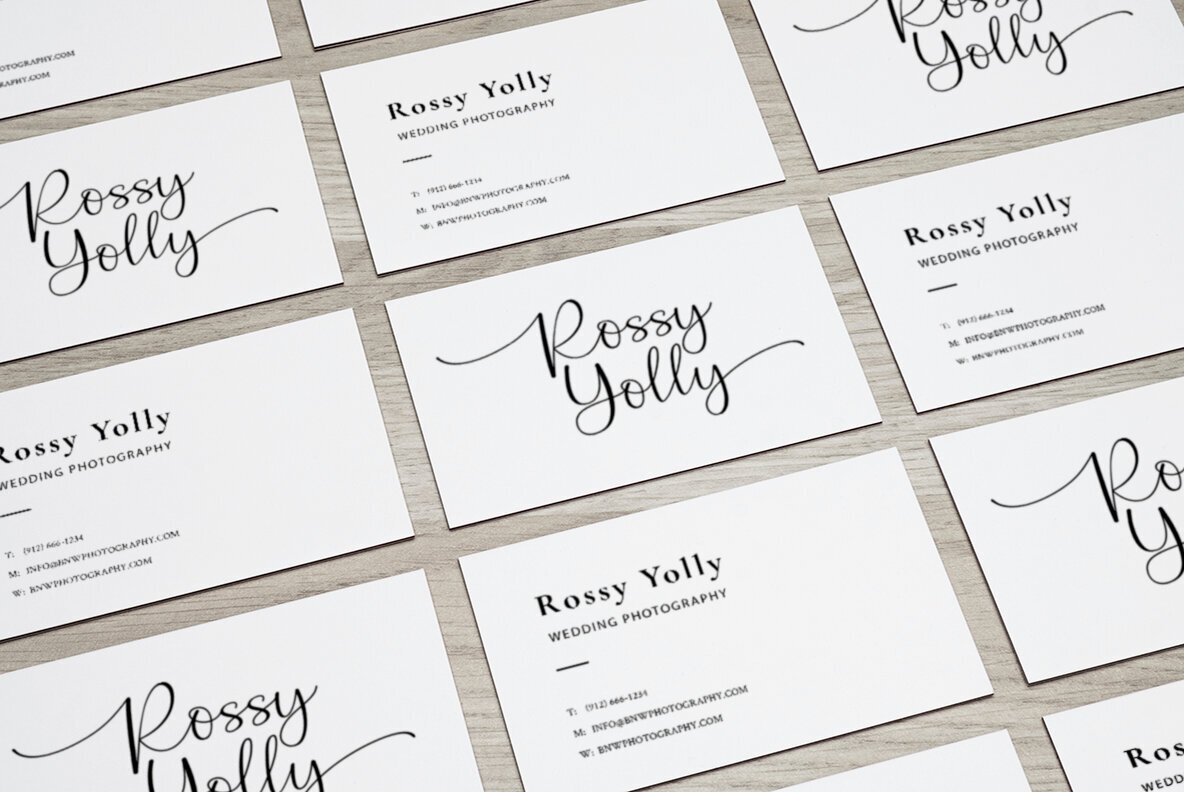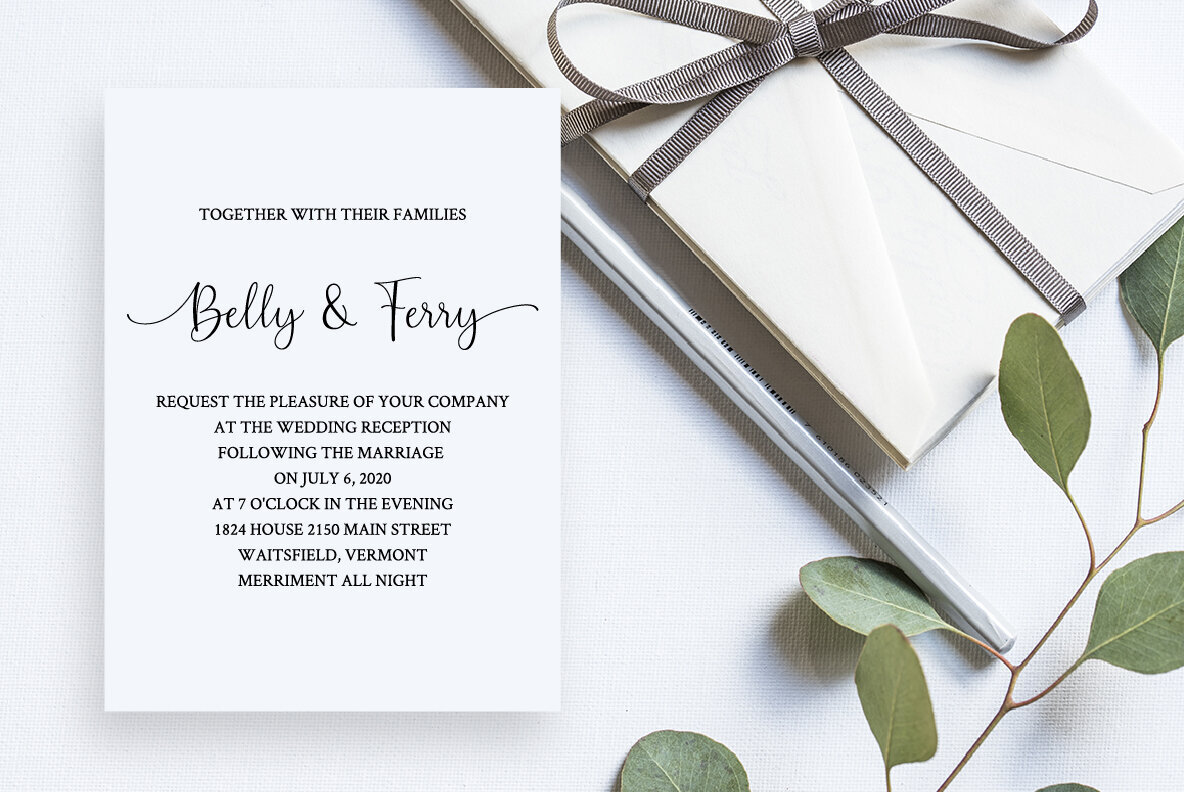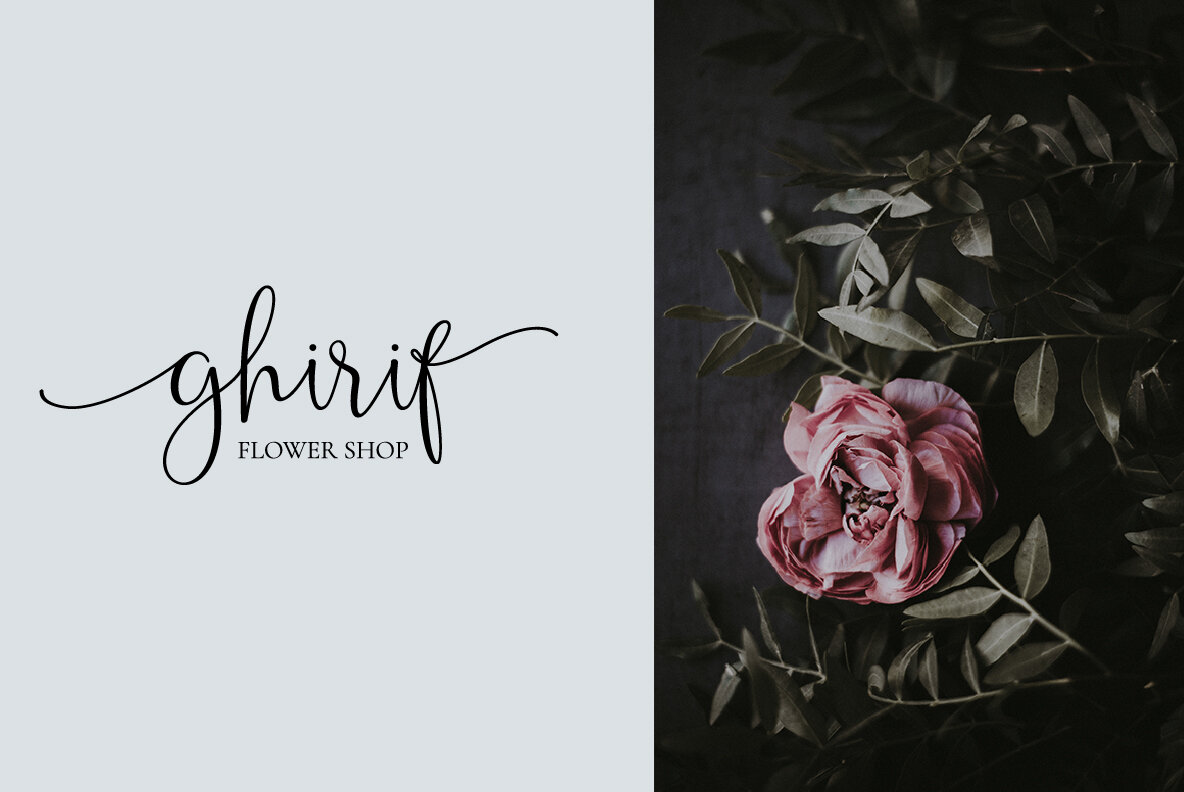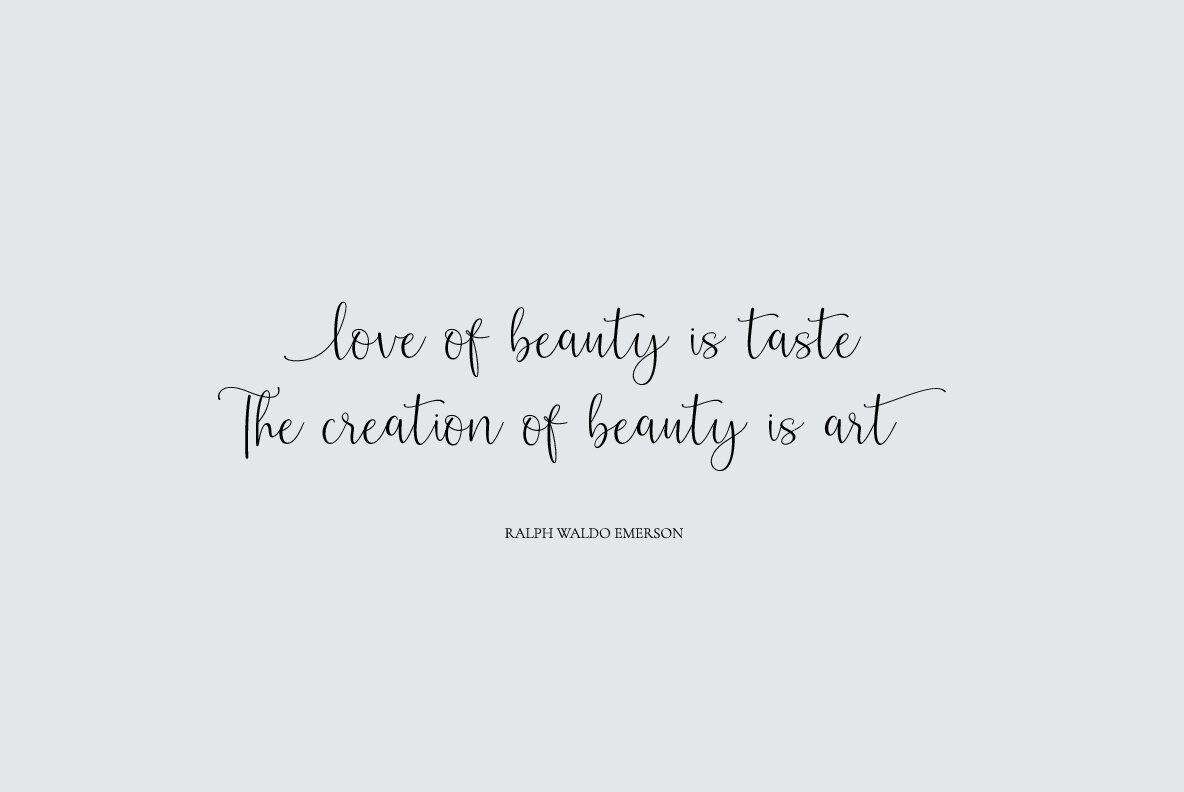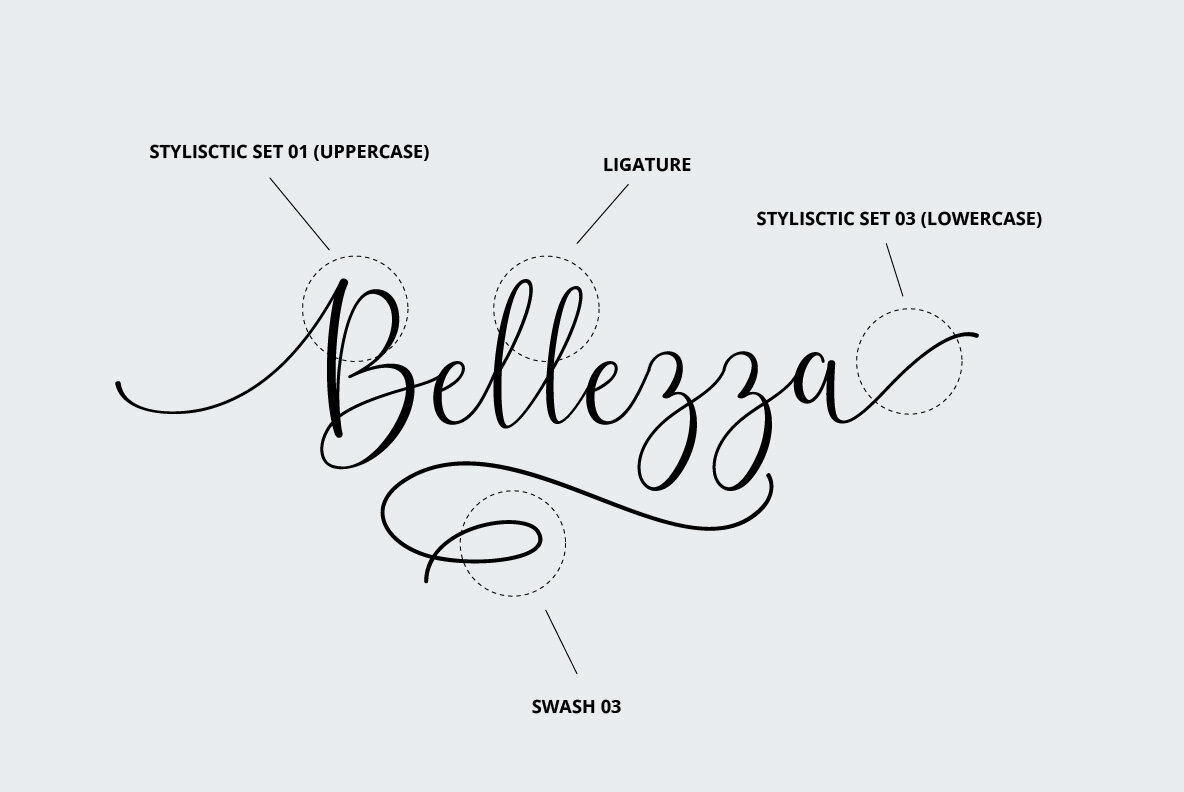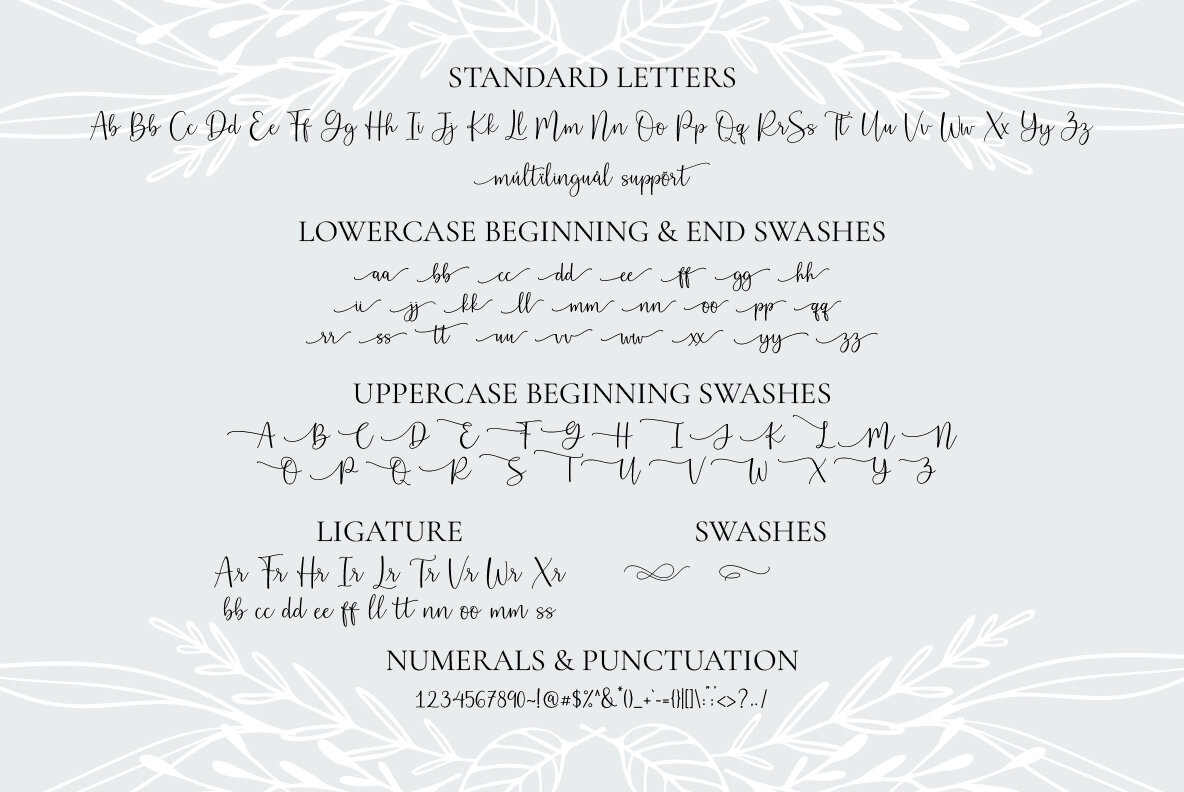
Belly Betty Font
Belly Betty Regular
Belly Betty offers a beautiful blend of modern and calligraphic styles, accented with numerous alternative styles and swashes. This combination gives the font a natural and elegant appearance, making it suitable for any extraordinary project. Belly Betty's versatility makes it perfect for a wide range of projects, including:Belly Betty: Elegant Calligraphy with Versatile Style